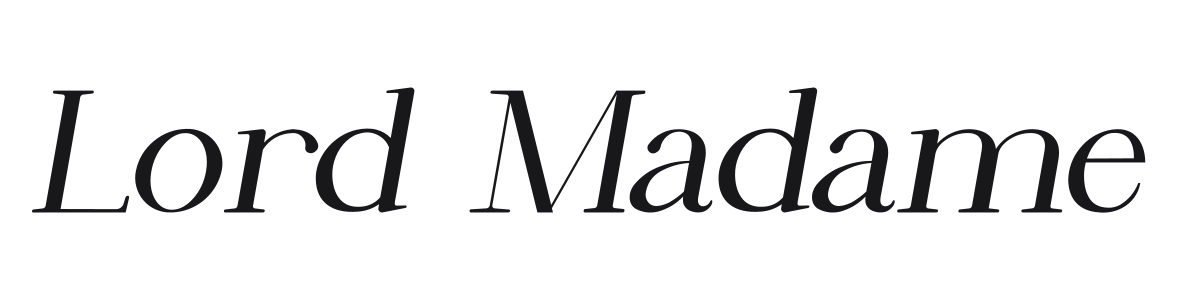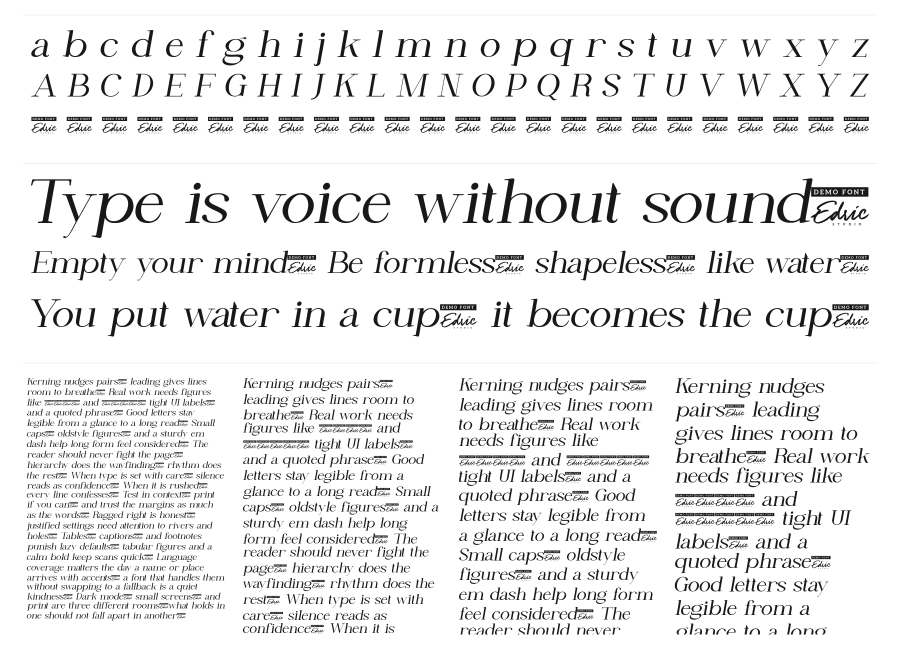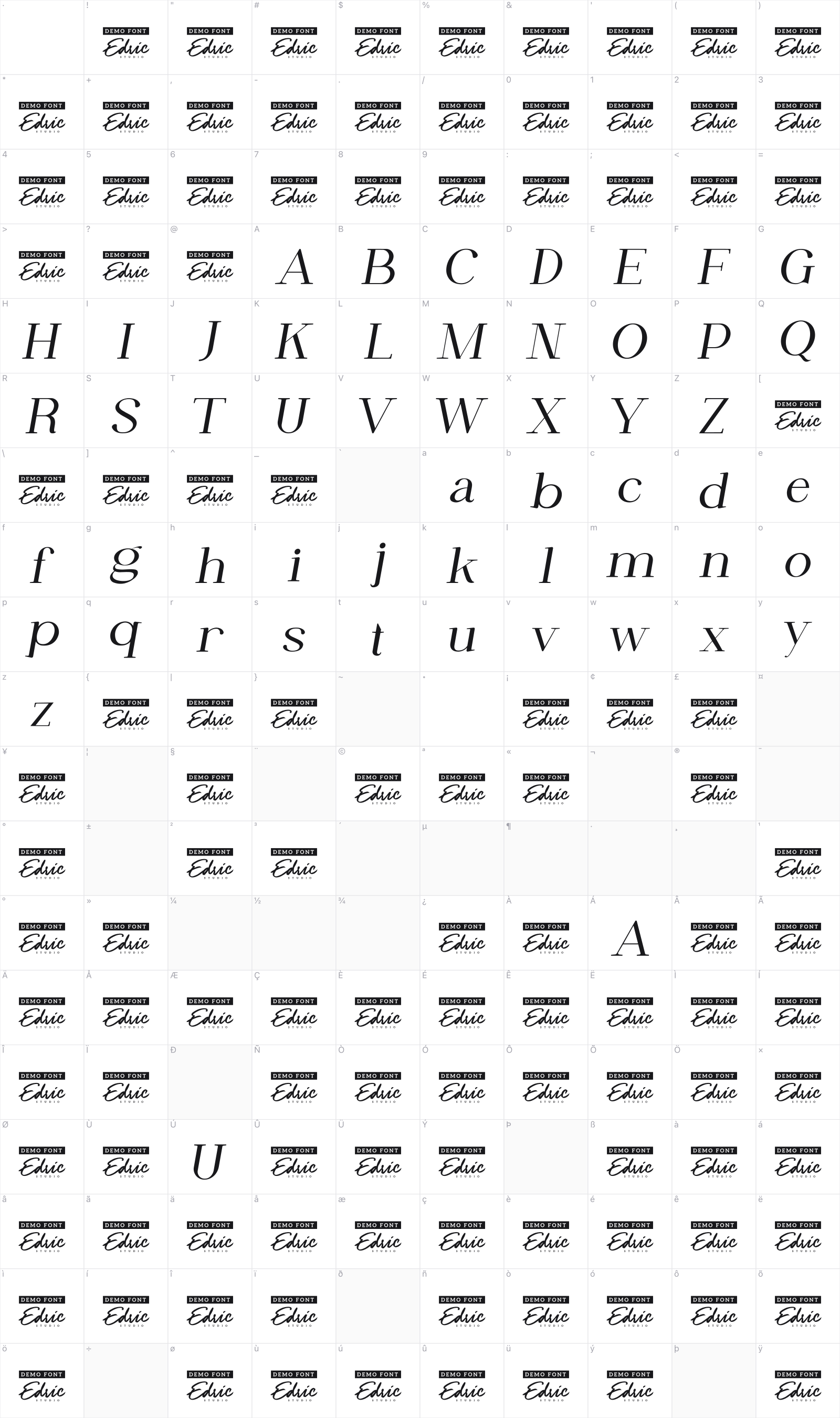
Lord Madame
Lord Madame is a high-contrast modern serif in a flowing italic, drawing from the Didone tradition of extreme stroke contrast between razor-thin hairlines and bold vertical stems. Wide, open proportions and flat unbracketed serifs push it firmly into couture editorial territory. It carries the kind of quiet confidence that works well for fashion branding, luxury packaging, and magazine headlines.